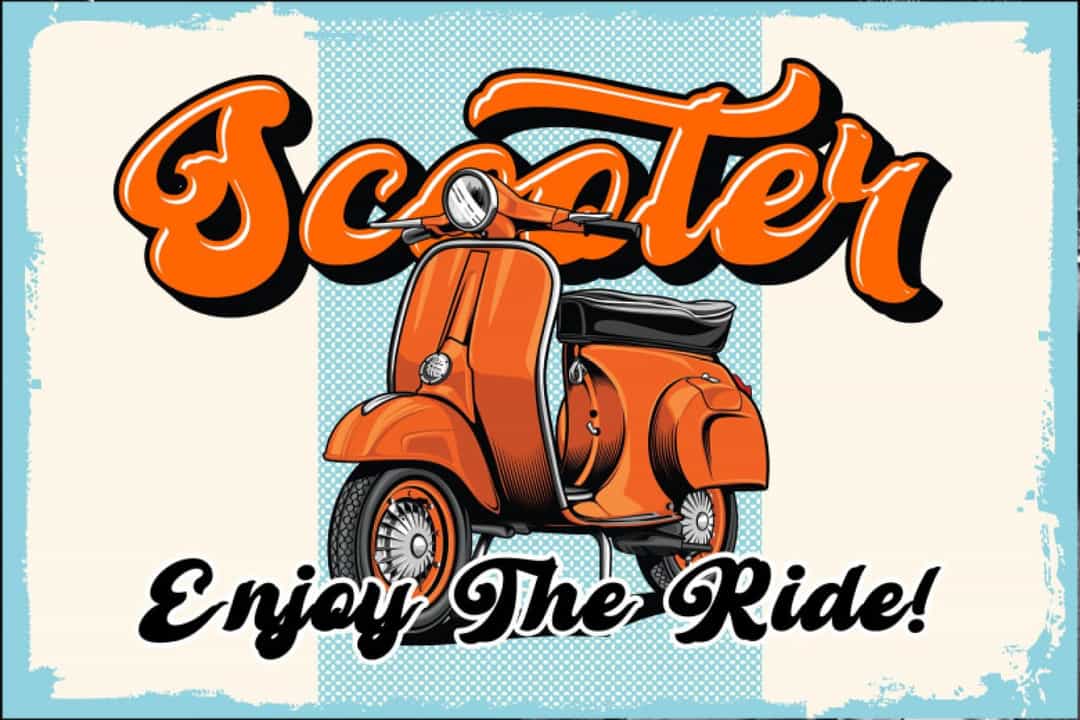
Retro Young is an eye-catching retro script font created using handwriting that’s sure to add drama and is ideal for projects requiring both old-fashioned looks as well as contemporary flair.